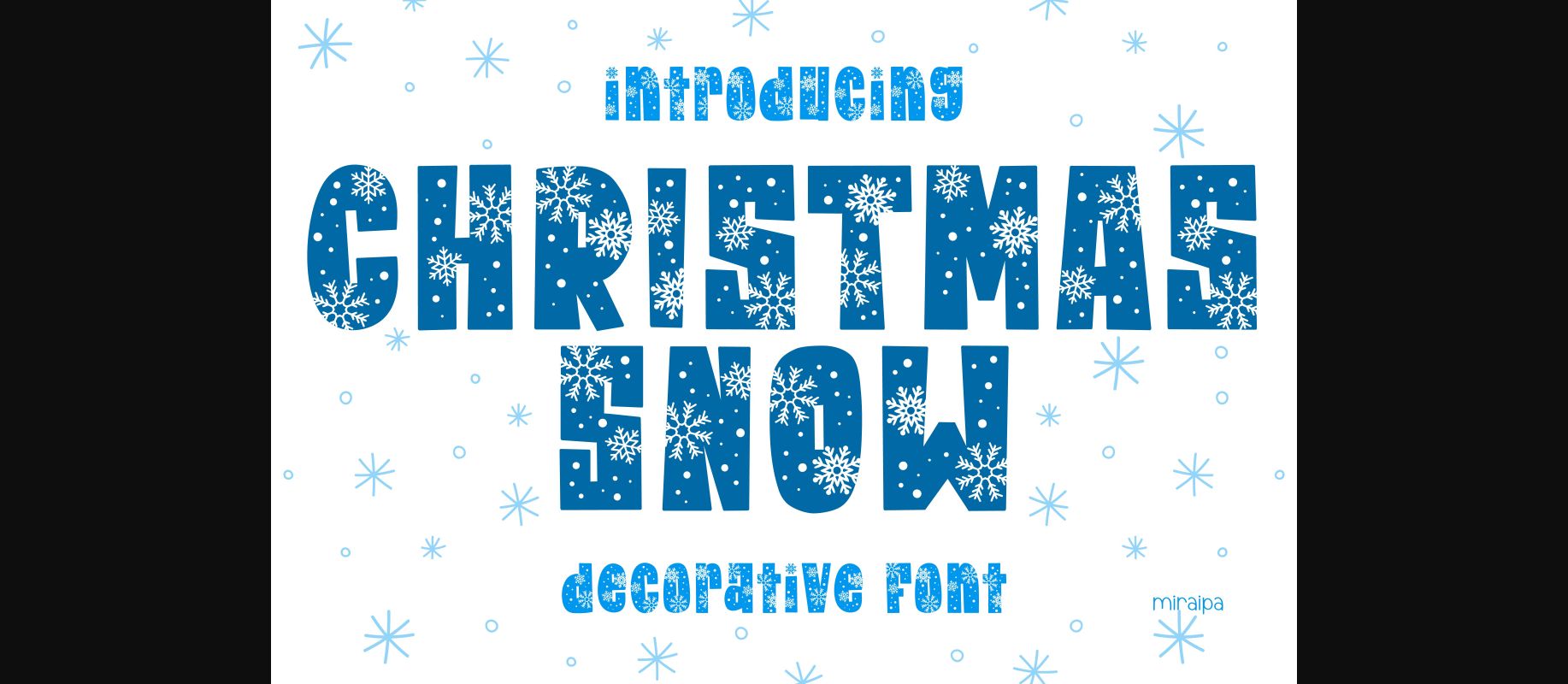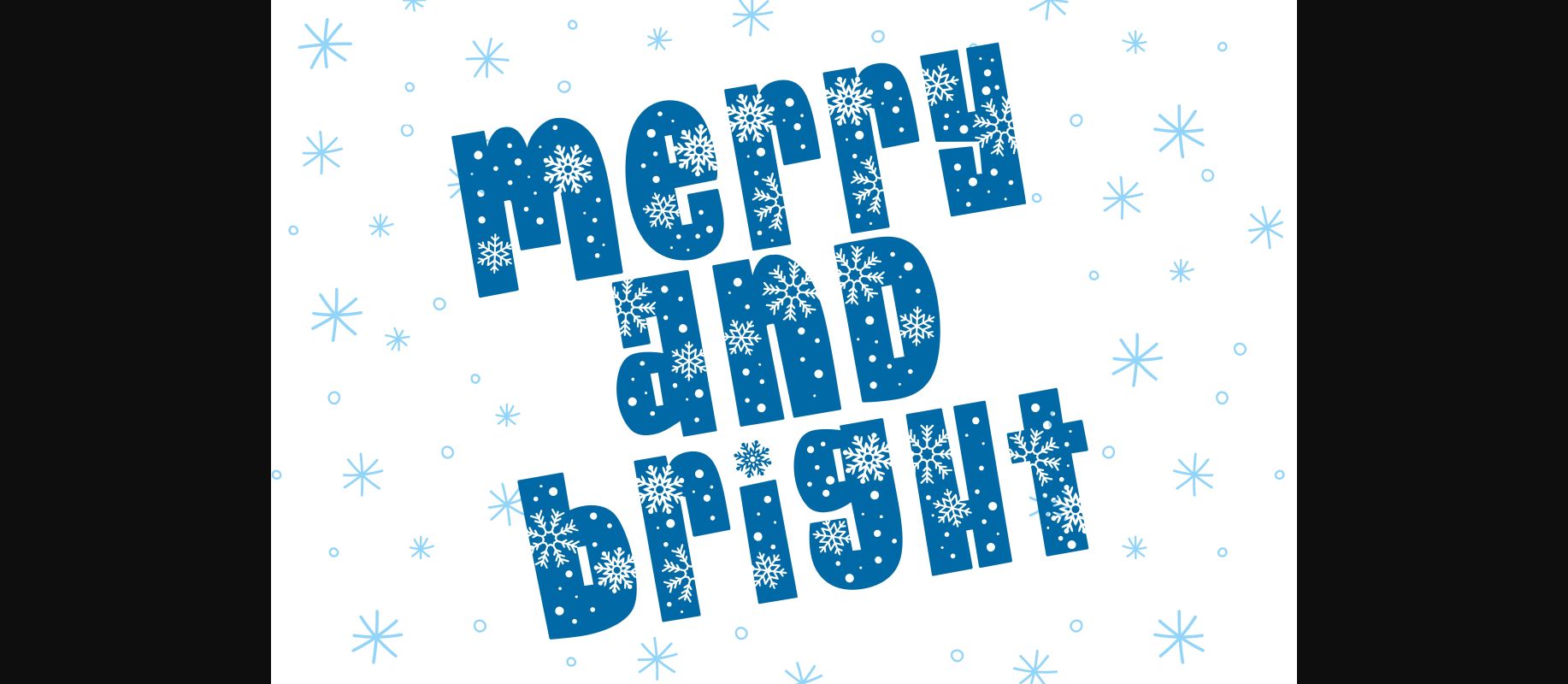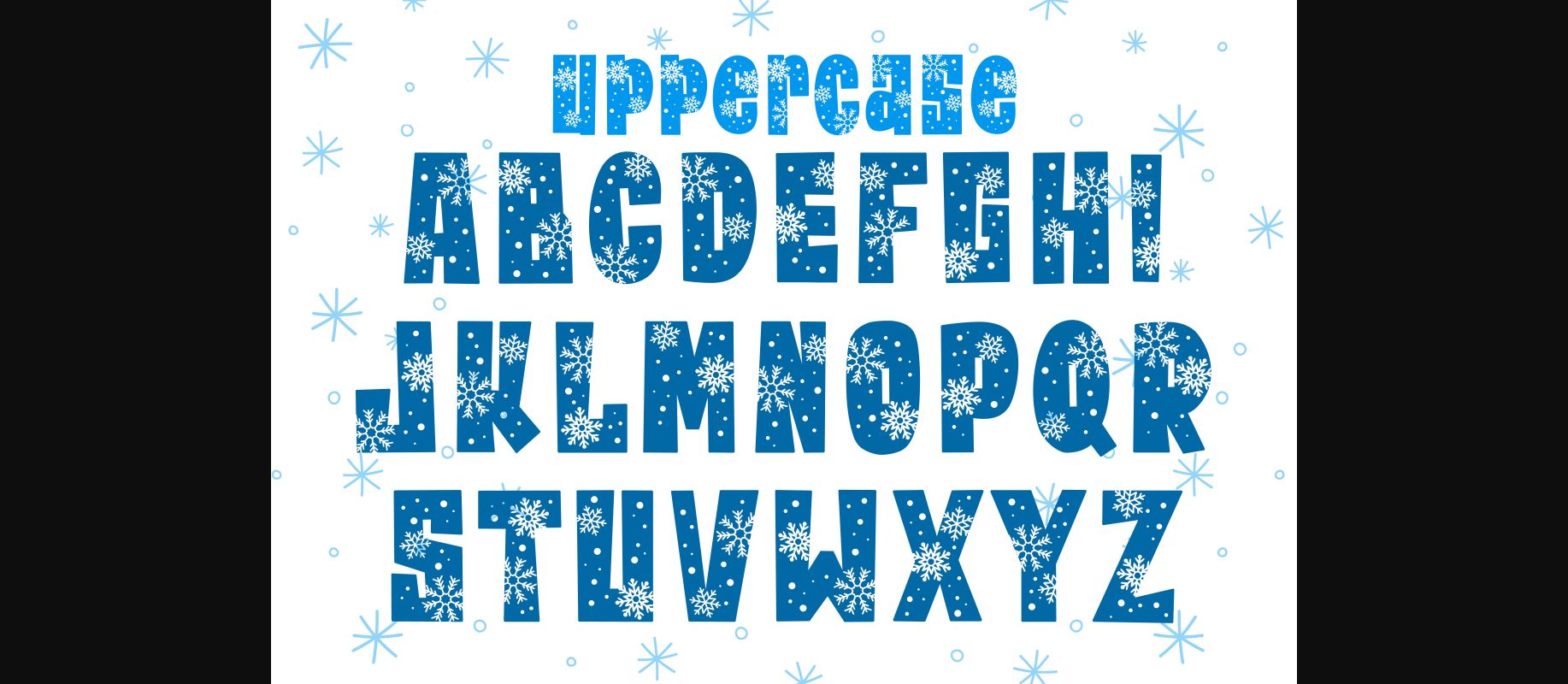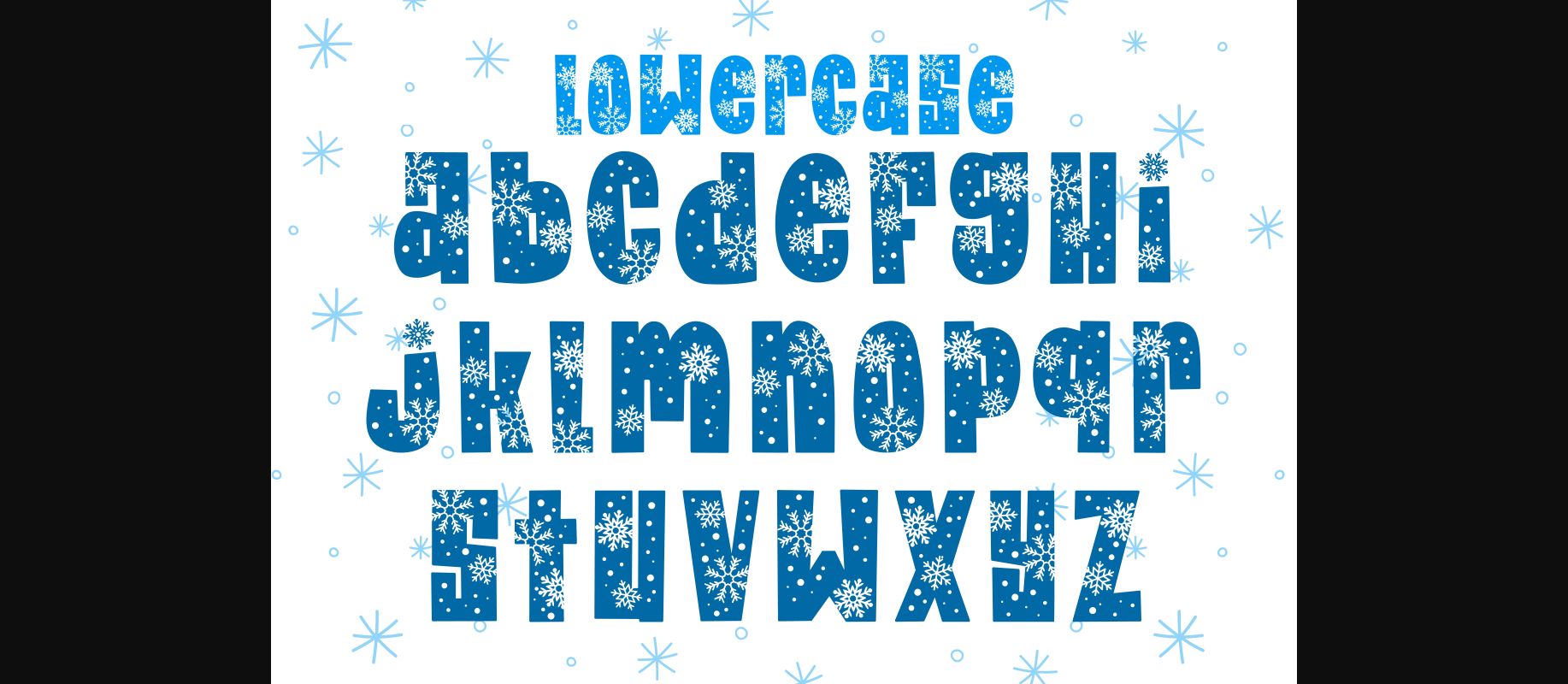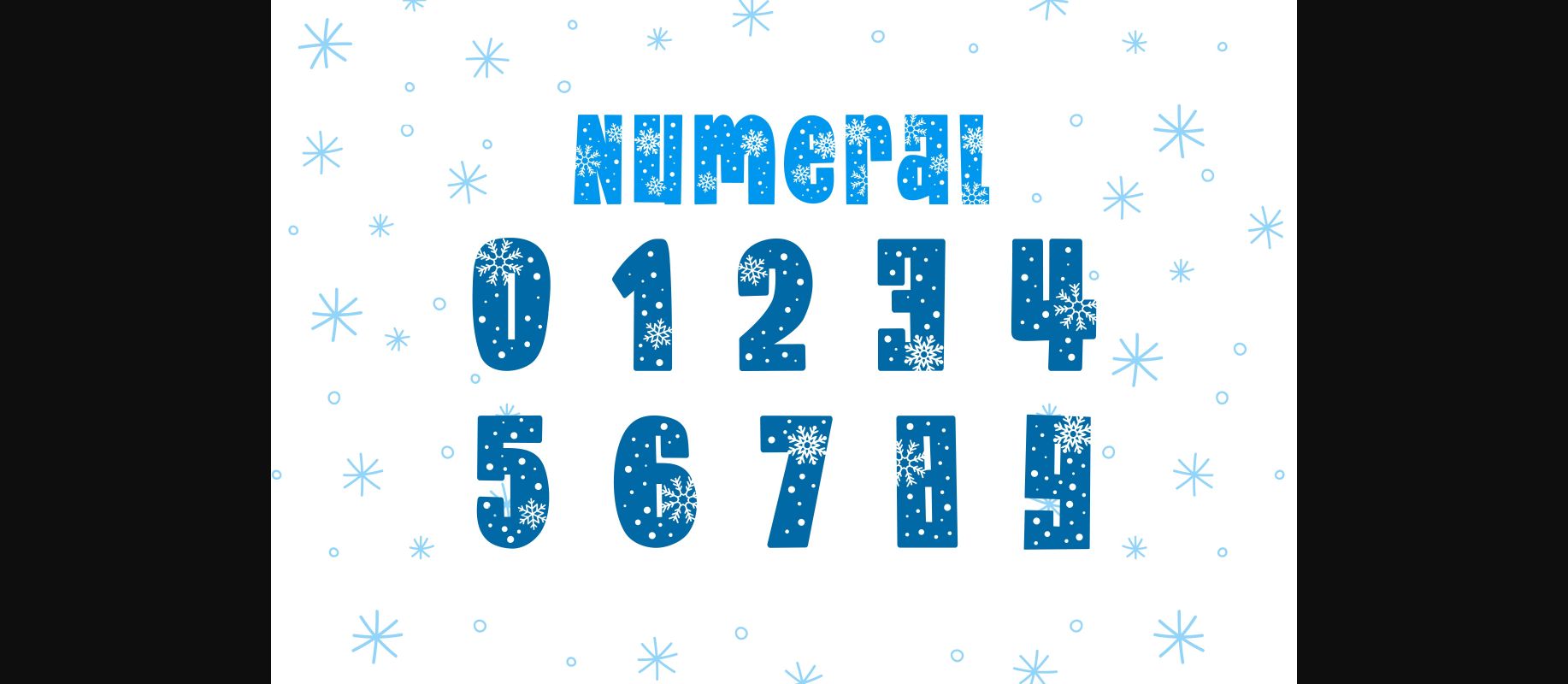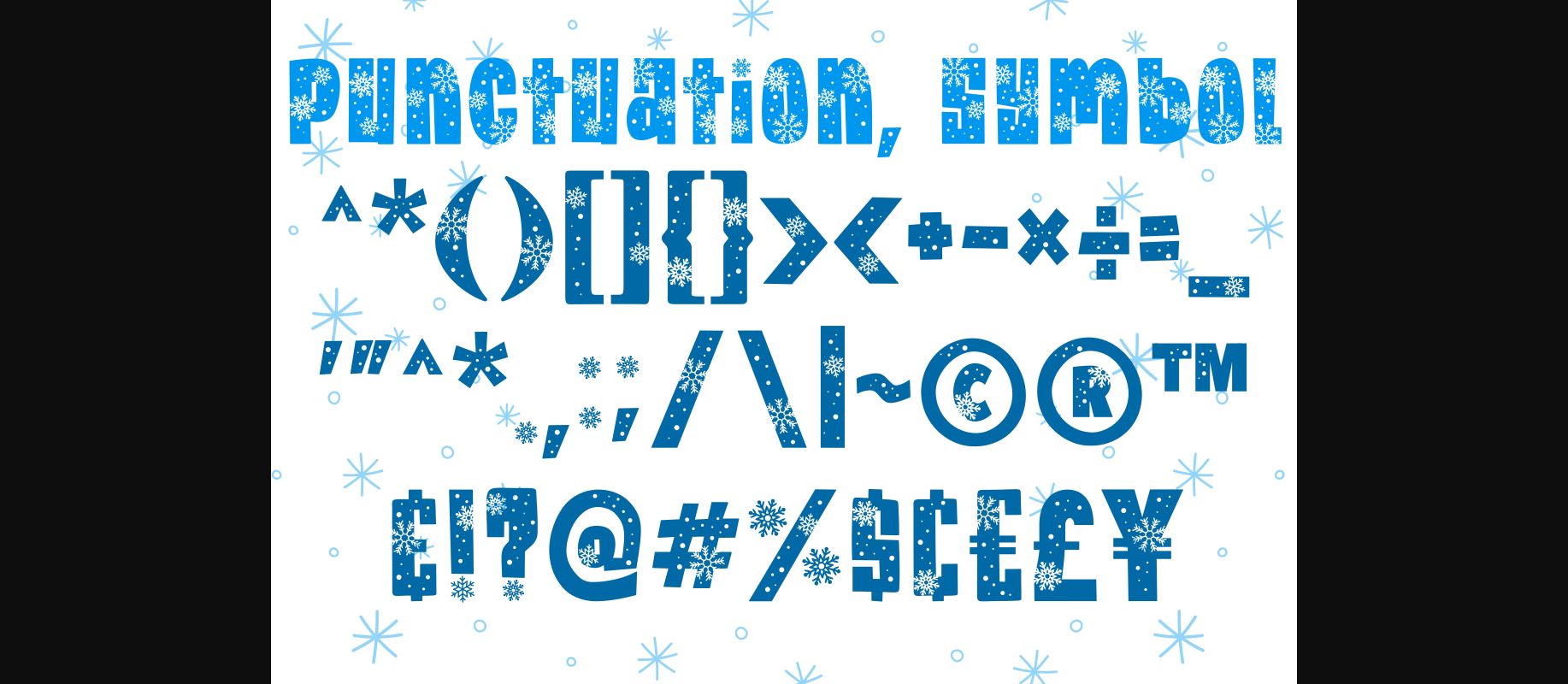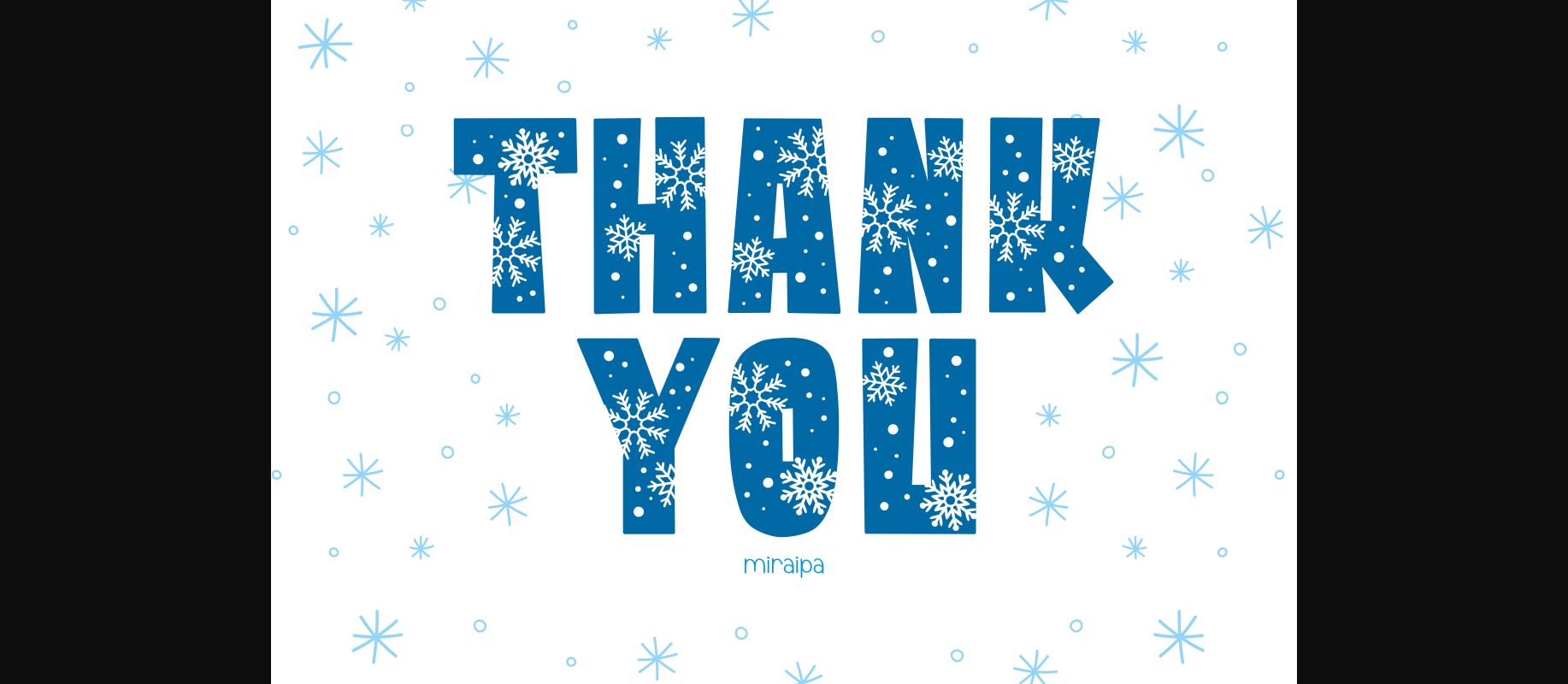
Christmas Snow Font
About Christmas Snow Font
Christmas Snow is a decorative font designed in a cute Christmas and Snow style. You can adapt it to your own awesome projects such as party decorations, party invitations, posters, blogs, clothing, greeting cards, social media posts, or anything that needs a friendly wintery touch. Add it now to your fonts library, and it will bring any of your DIY projects to life!